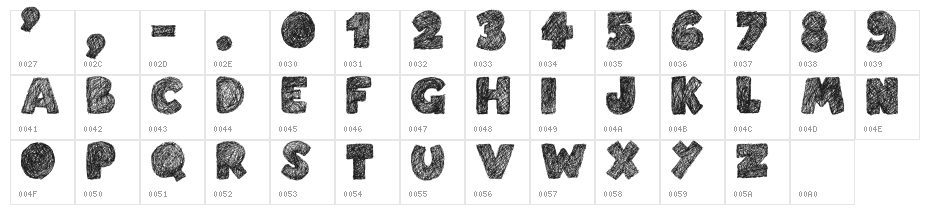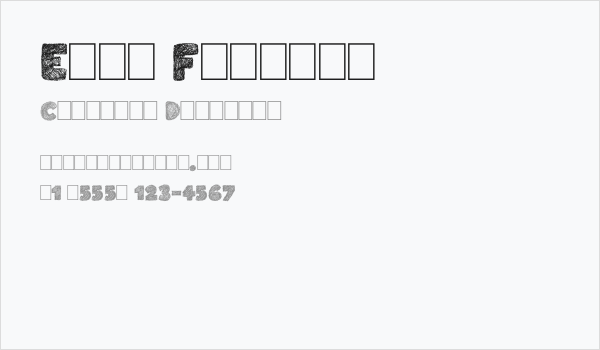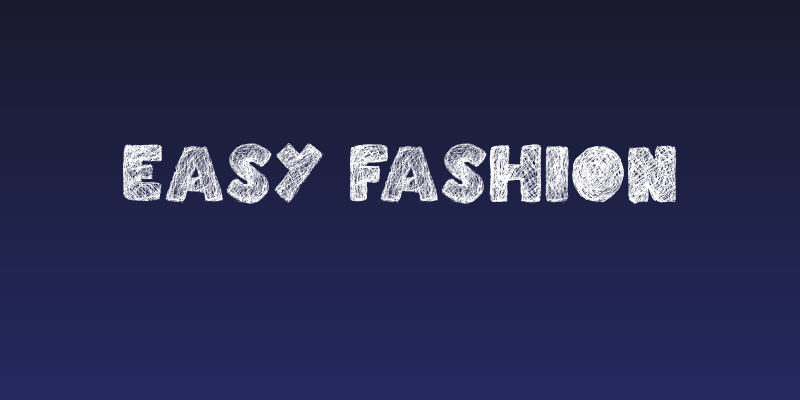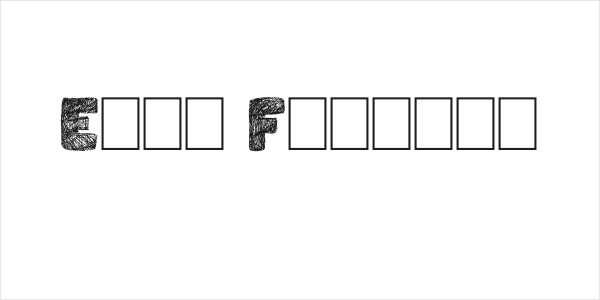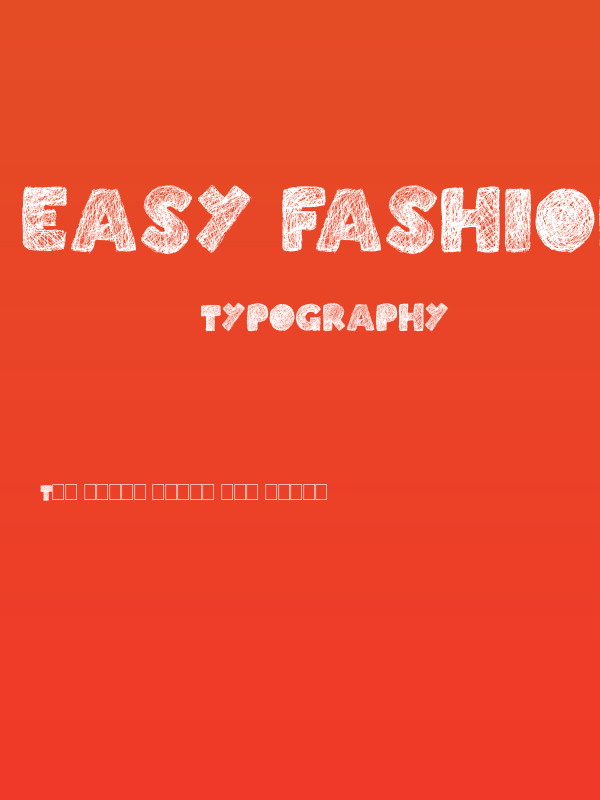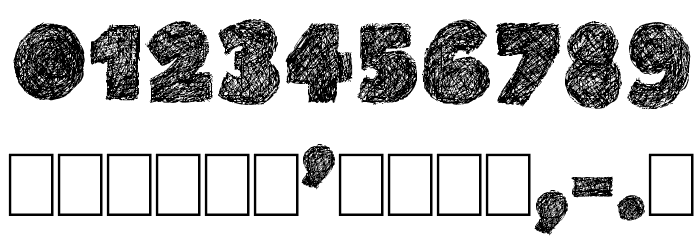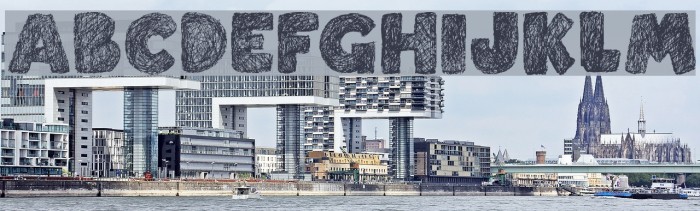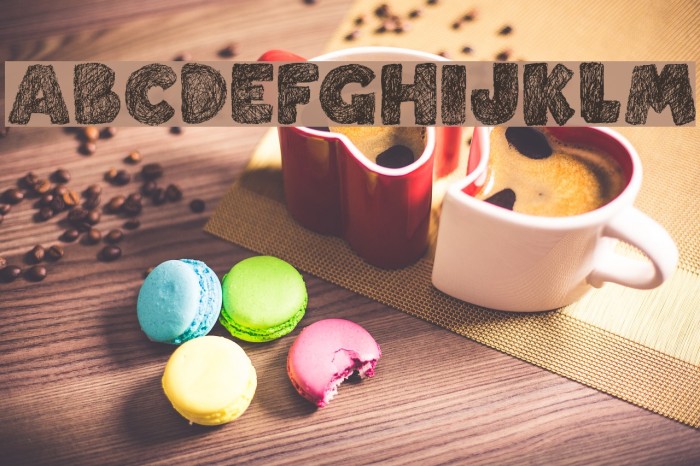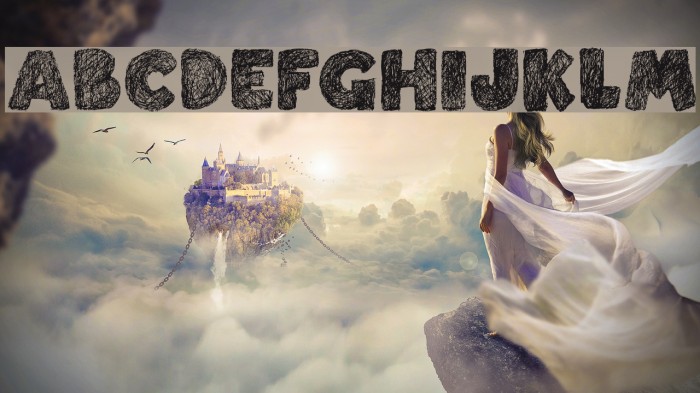
Easy Fashion Font
Easy Fashion Description
This font features a bold, textured style that resembles a hand-drawn or chalk-like appearance. The uppercase letters are robust and filled with a dense, scribbled pattern that gives them a playful yet impactful look. The numbers follow the same design, maintaining consistency across the character set. The lack of lowercase letters suggests a focus on making a strong visual statement, ideal for headlines or titles. The overall aesthetic is casual and artistic, making it suitable for creative projects that require a distinctive and eye-catching typeface.
| Proposed Projects | Ideal for posters, children's book covers, creative branding, and event flyers. |